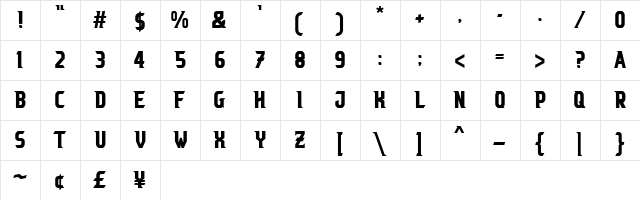
Royal Knights Regular Font Preview
Royal Knights Regular
Royal Knights Regular Font Details
| Foundry | HoPoYa Studio |
| Designer | Mahmud Fajar Rosyadi |
Design Context for Royal Knights Typeface
Royal Knights takes a measured approach to typography — its balanced proportions and neutral character make it a reliable workhorse for both digital and print work.